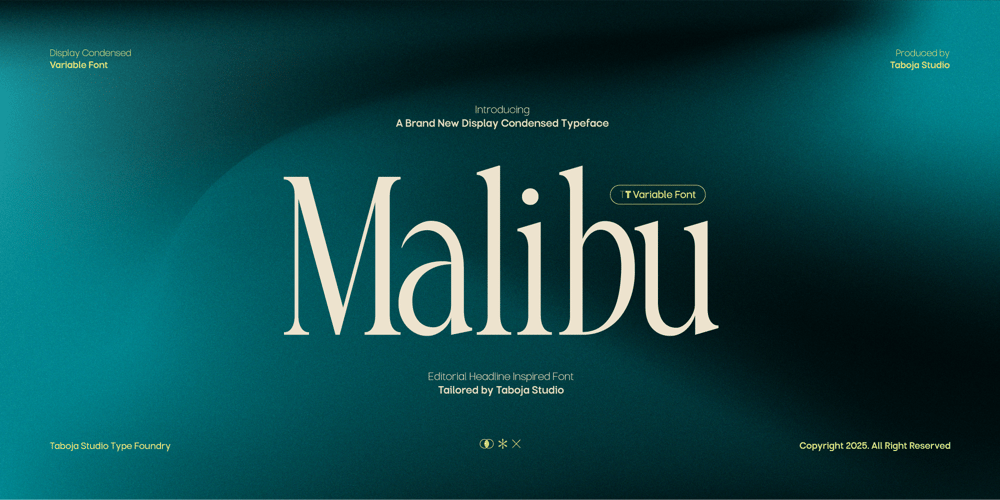
TBJ Malibu Condensed Serif
TBJ Malibu Condensed Serif font
TBJ Malibu Condensed Serif Font Family was designed by Yusilo Oktaprima Ardani and published by Taboja Studio. TBJ Malibu Condensed Serif contains 8 styles and family package options. TBJ Malibu is a stunning display font with Condensed style and Variable Font capability, to set a new standard in the world of display typography. This font not only offers an elegant look with slim and tall proportions, but also provides tremendous flexibility with its 8 variable font variants.Each variant allows for width and weight adjustments, allowing designers to create compositions that truly fit their needs-from lighter, subtle typography, to more dramatic bold versions. The elegant green-blue graded background further strengthens the visual appeal of this font, showcasing its aesthetic potential that is perfect for branding, logos, editorials and other creative projects.TBJ Malibu is not just a font, but a flexible and characterful visual expression tool, designed to give an exclusive and contemporary feel in a wide range of design applications.Includes:- TBJ Malibu Thin, Extra Light, Light, Regular, Medium, Bold, Extra Bold- Uppercase & Lowercase- Numerals and Punctuation- Accented characters- Multilingual SupportWe highly recommend using a program that supports OpenType features and Glyphs panels such as Adobe Illustrator, Adobe Photoshop CC, Adobe Indesign, or CorelDraw, so you can see and access all Glyph variations.While using this product, if you encounter any problem or spot something we may have missed, please don’t hesitate to drop us a message. We’d love to hear your feedbacks in order to further fine-tune our products.Stay creative and have a wonderful day.